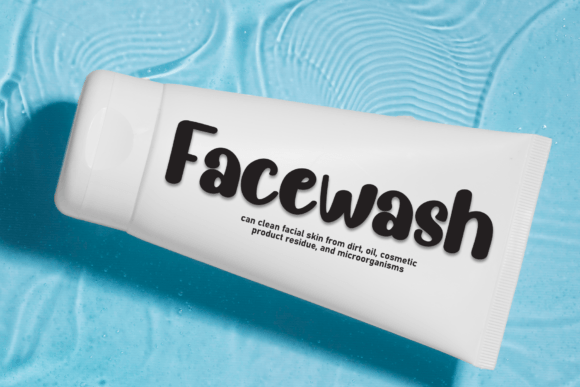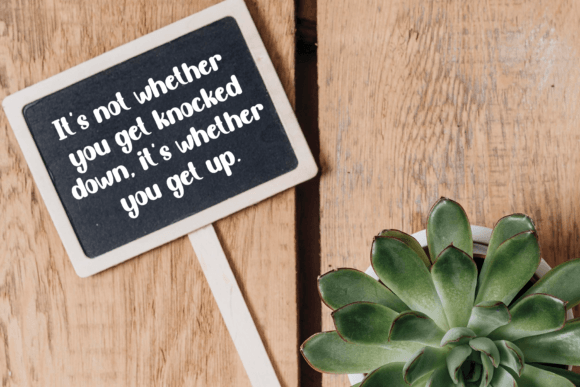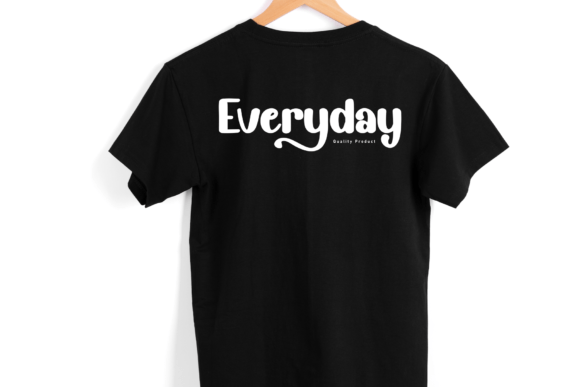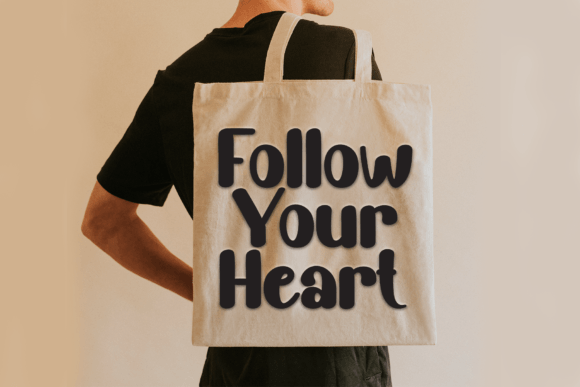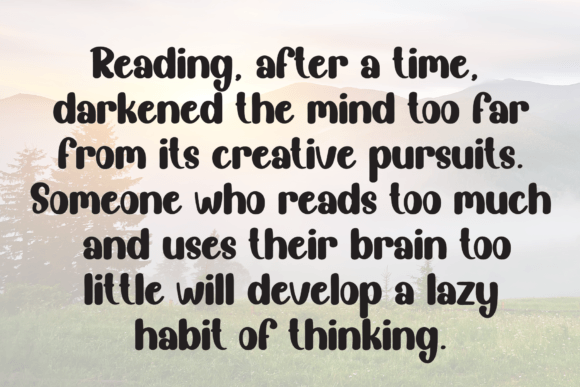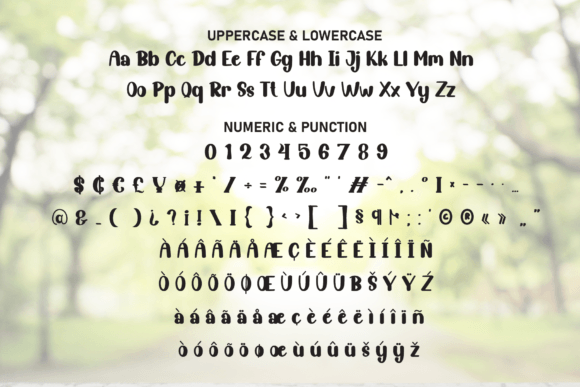
Introducing Daily Font: The Perfect Handwritten Font for Your Creative Projects
Are you tired of using the same old fonts in your designs? Do you want to add a touch of warmth and personality to your text? Look no further than Daily Font, a fun and friendly handwritten font that’s perfect for casual notes, lively designs, and everything in between.
What is Daily Font?
Daily Font is a beautiful, handwritten font that’s designed to look like neat, cheerful handwriting with a playful touch. It’s the perfect way to add a personal touch to your designs, making your text feel warm and inviting. Whether you’re a designer, crafter, or simply someone who loves to create, Daily Font is the perfect addition to your font collection.
Characteristics of Daily Font
So, what makes Daily Font so special? Here are just a few of its key characteristics:
- Handwritten look: Daily Font has a beautiful, handwritten look that’s perfect for adding a personal touch to your designs.
- Playful touch: This font has a playful, cheerful feel that’s sure to bring a smile to your face.
- Neat and legible: Despite its playful nature, Daily Font is still neat and legible, making it perfect for use in a variety of designs.
- Warm and inviting: This font has a warm, inviting feel that’s sure to make your text feel more approachable and friendly.
Uses for Daily Font
So, what can you use Daily Font for? The possibilities are endless! Here are just a few ideas to get you started:
- Casual notes: Daily Font is perfect for writing casual notes, whether you’re sending a message to a friend or creating a note for a special occasion.
- Lively designs: This font is also great for use in lively designs, such as posters, flyers, and brochures.
- DIY projects: If you love to craft or work on DIY projects, Daily Font is a great addition to your font collection. Use it to add a personal touch to your projects, such as handmade cards, gift tags, and more.
- Social media graphics: Daily Font is also perfect for use in social media graphics, such as Facebook posts, Instagram captions, and more.
Why Choose Daily Font?
So, why should you choose Daily Font for your next project? Here are just a few reasons:
- Unique look: Daily Font has a unique, handwritten look that’s sure to make your text stand out.
- Easy to read: Despite its playful nature, Daily Font is still easy to read, making it perfect for use in a variety of designs.
- Versatile: This font is versatile and can be used in a variety of designs, from casual notes to lively designs.
- Fun and friendly: Daily Font has a fun and friendly feel that’s sure to bring a smile to your face.
In conclusion, Daily Font is a beautiful, handwritten font that’s perfect for adding a personal touch to your designs. With its playful, cheerful feel and neat, legible writing, it’s the perfect choice for casual notes, lively designs, and everything in between. Whether you’re a designer, crafter, or simply someone who loves to create, Daily Font is a great addition to your font collection.